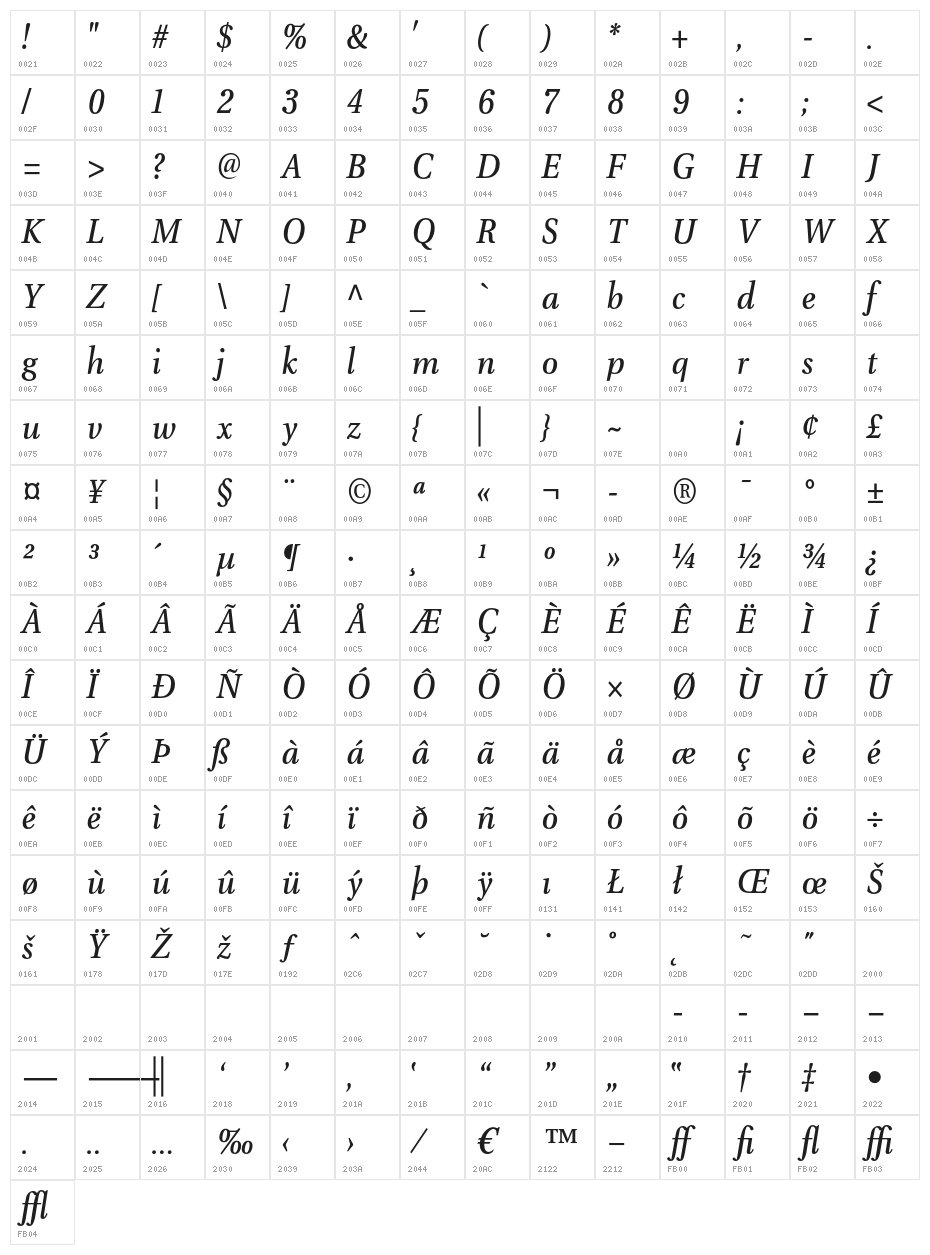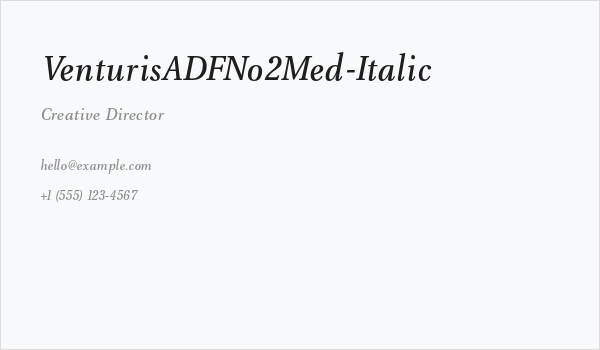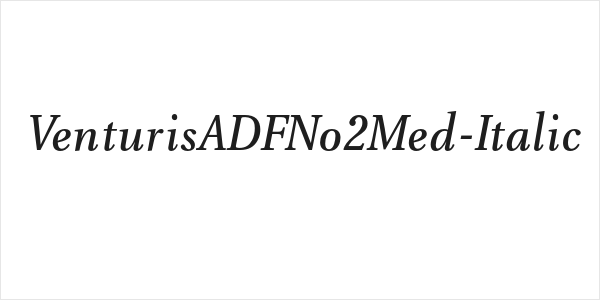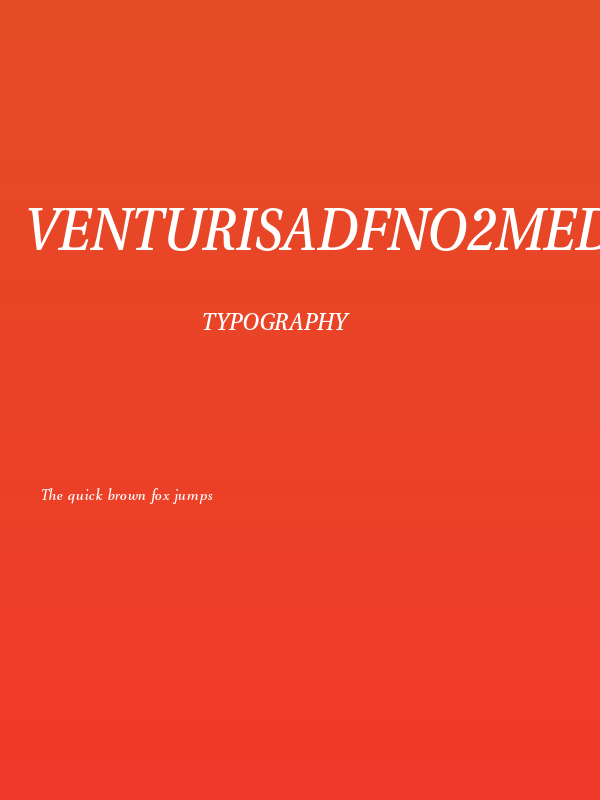
VenturisADFNo2Med-Italic Font
VenturisADFNo2Med-Italic Description
This font features a classic serif style with a distinct italic slant, giving it an elegant and sophisticated appearance. The serifs are well-defined and slightly curved, adding a touch of refinement. The uppercase letters are tall and commanding, while the lowercase letters maintain a consistent flow with smooth curves. The numerals are clear and balanced, ensuring readability. Special characters are designed with the same attention to detail, making them cohesive with the rest of the typeface. Overall, this font exudes a timeless charm, suitable for various formal and professional applications.
| Proposed Projects | Ideal for book covers, formal invitations, branding for luxury products, and editorial design. |